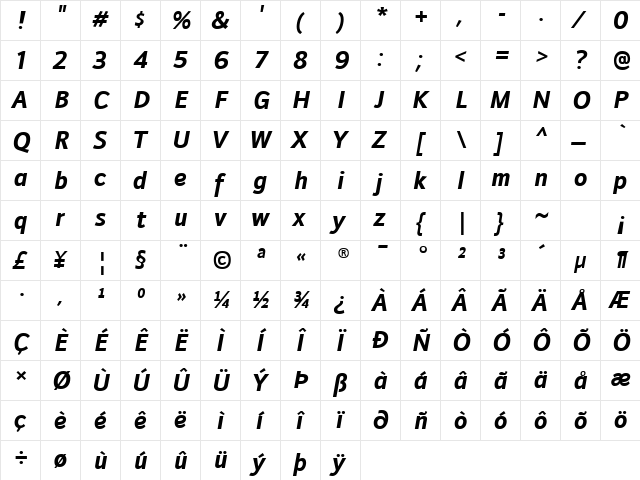
Doradani Bold Italic
Design Context for Doradani Typeface
Doradani takes a measured approach to typography — its balanced proportions and neutral character make it a reliable workhorse for both digital and print work. The dynamic lean of this cut emphasises speed and emphasis in any layout. The heavy weight commands attention and anchors typographic hierarchies.
Pro Tip: Use Doradani for emphasis, pull quotes, and subheadings where its slanted energy can add rhythm to the layout.